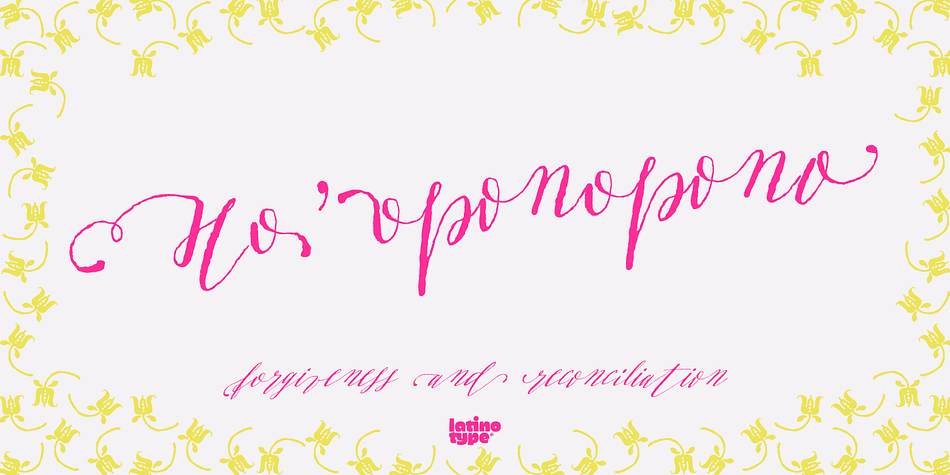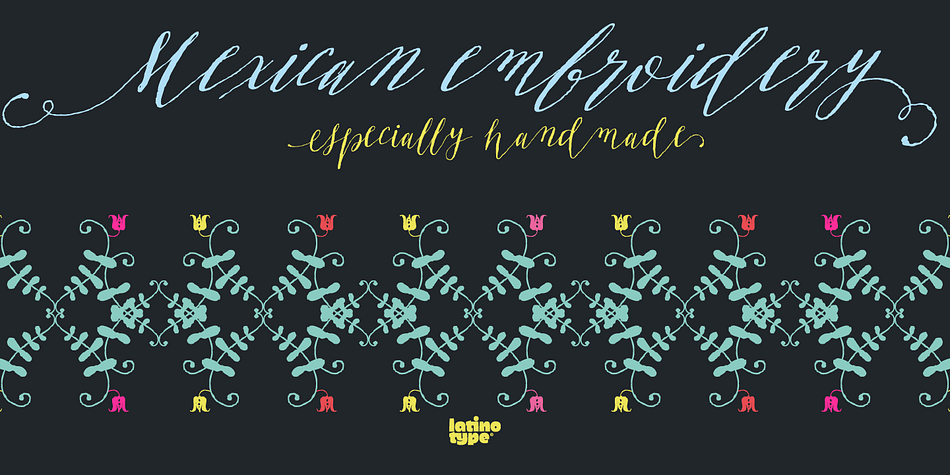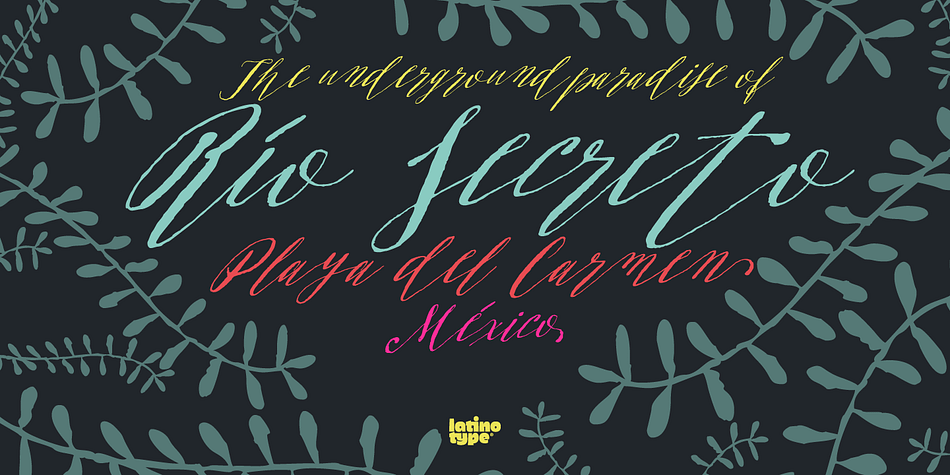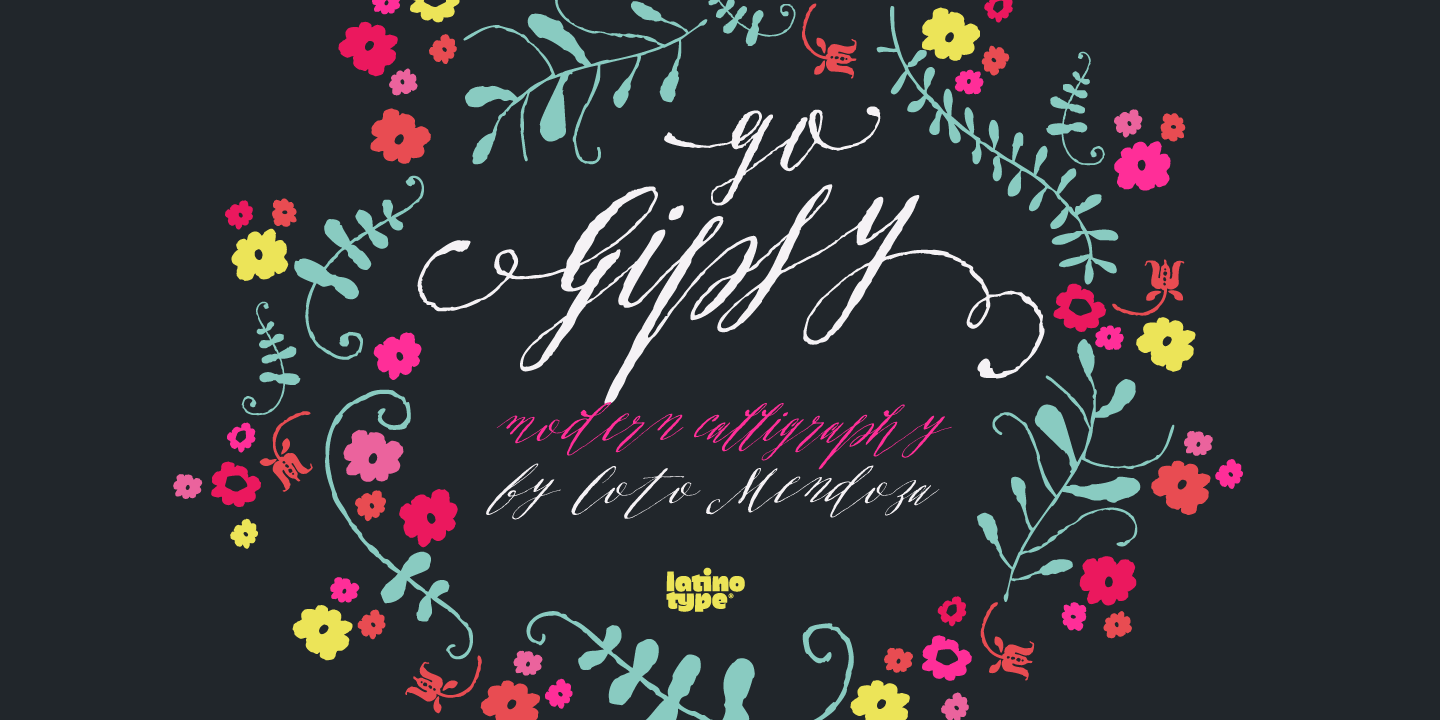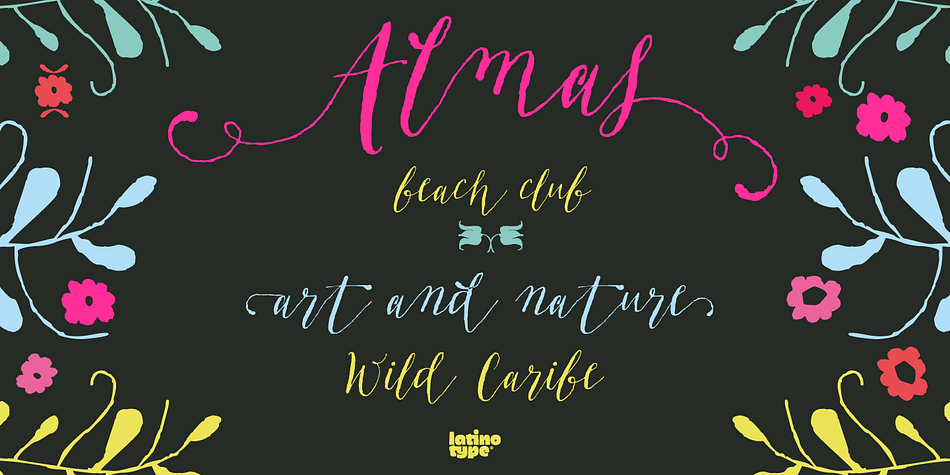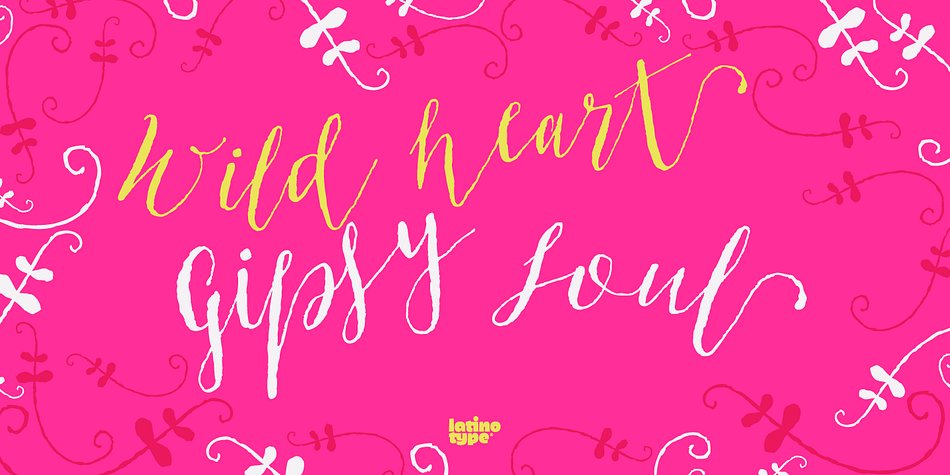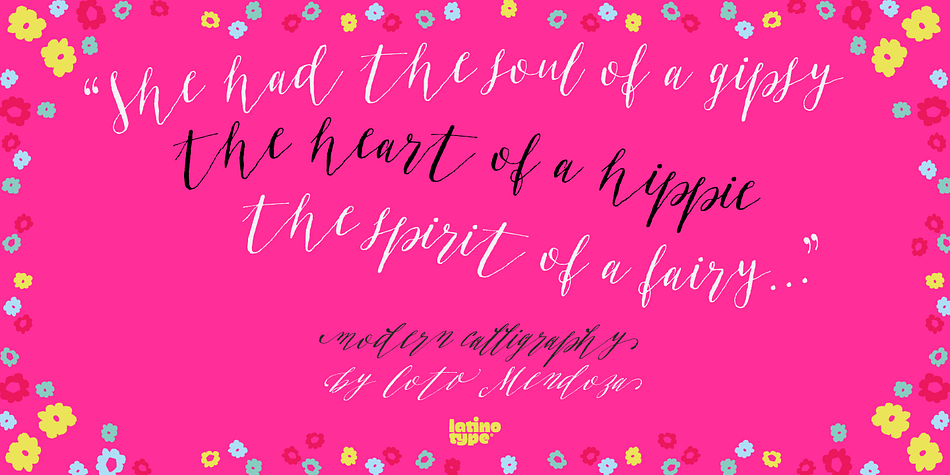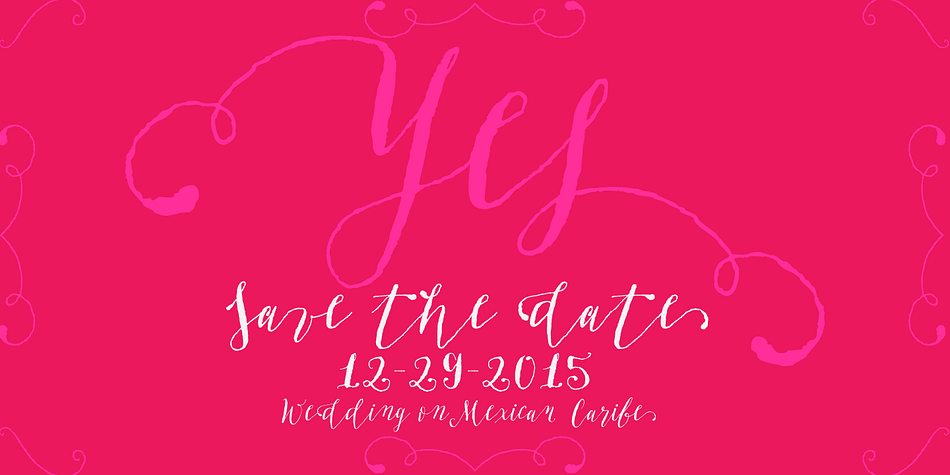
Go Gipsy is a dingbat and modern calligraphy font family. This typeface has five styles and was published by Latinotype.
Go Gipsy is a script font based on Coto Mendoza’s modern calligraphy works created with the technical assistance of Luciano Vergara. Go Gipsy is inspired by a magical journey—full of love, art and nature—through the Mexican Caribbean. Go Gipsy tries to capture such incredible blend through gestures and calligraphy strokes, conveying freedom, expressiveness, strength and spontaneity. The family consists of four versions: regular, italic, drop and italic drop plus a set of ornaments based on the visual appealing Mexican textile art and embroidery full of colour and beauty. Go Gipsy’s baseline emphasises movement and rhythm. Have fun with OpenType features, swashes, ligatures and a wide array of initials.
Go Gipsy! Each journey, new inspiration…